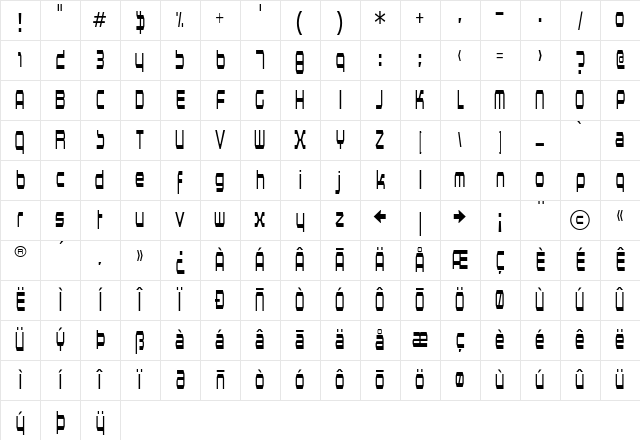
Horsepower brings high-energy athletic personality to the page - its confident, muscular forms are built for impact.
Pro Tip: Use Horsepower in all-caps headlines where its athletic energy can fully express itself. Pair with a solid, simple sans for supporting text.